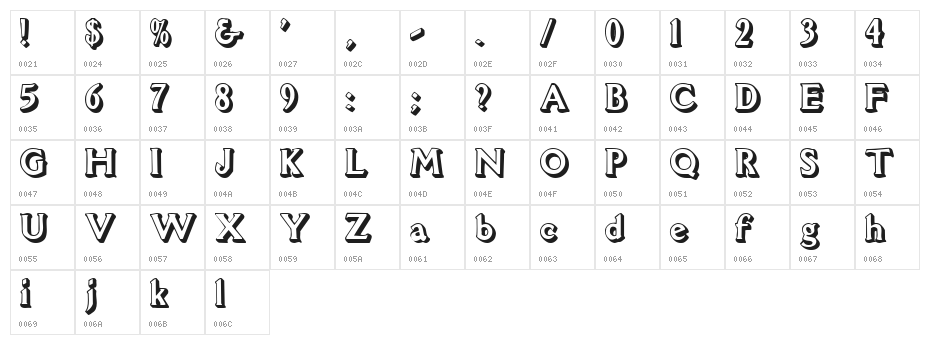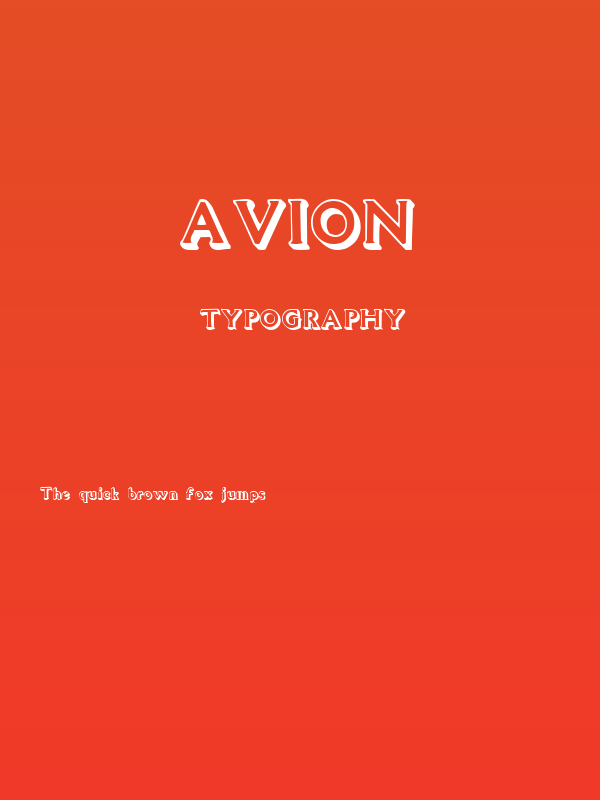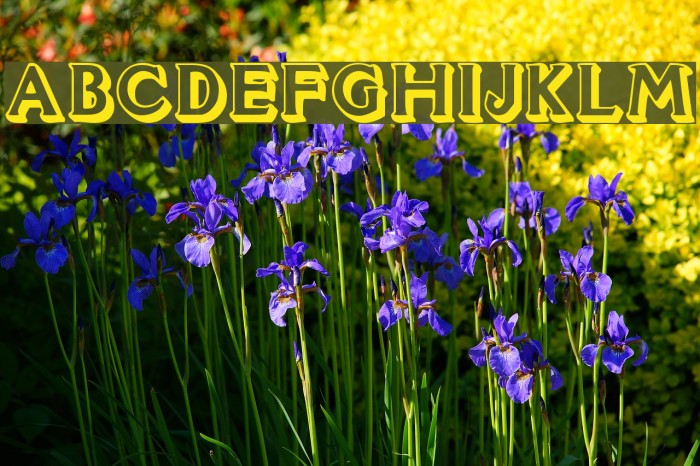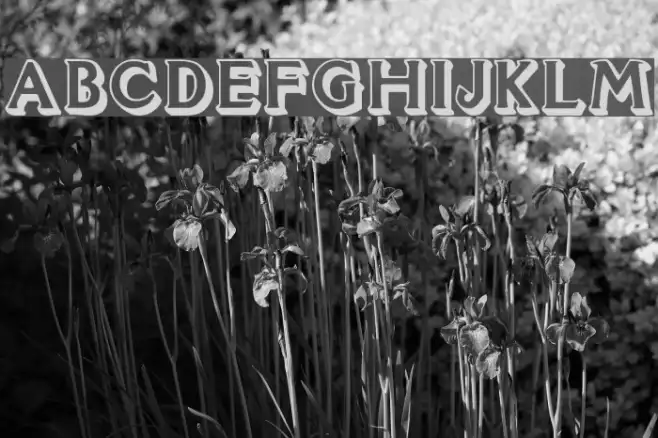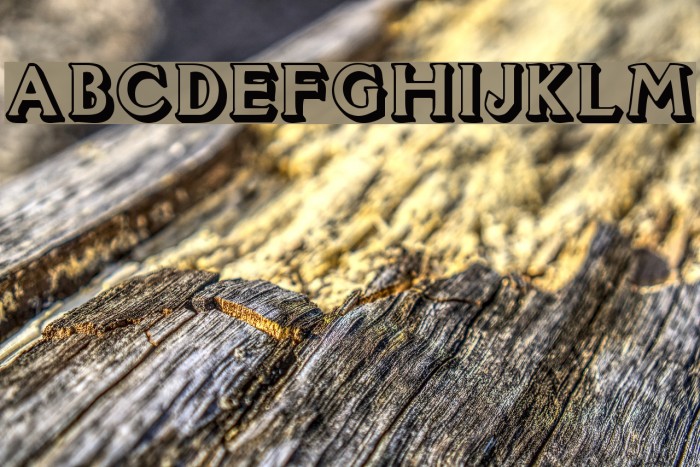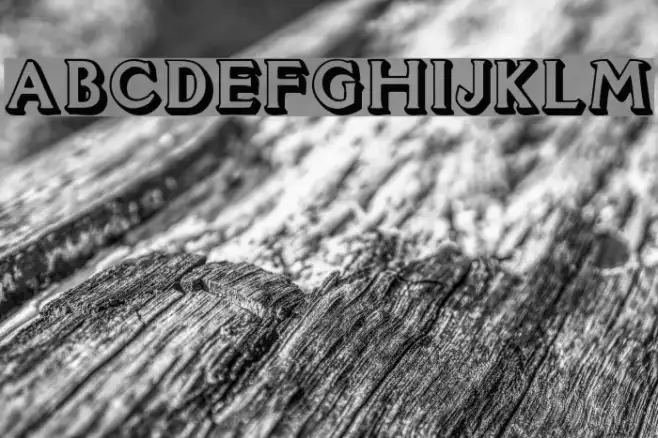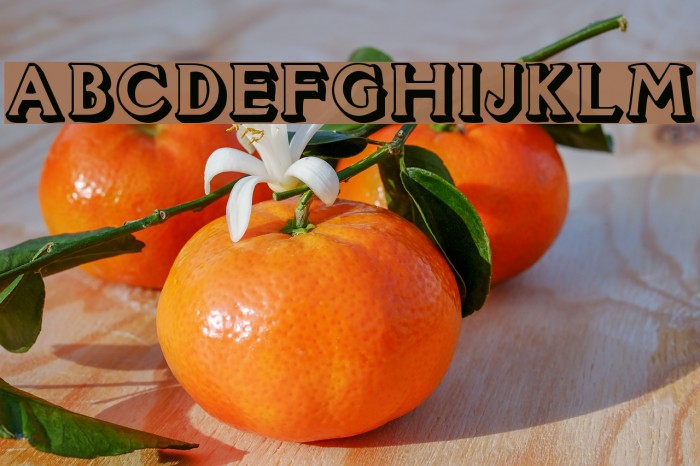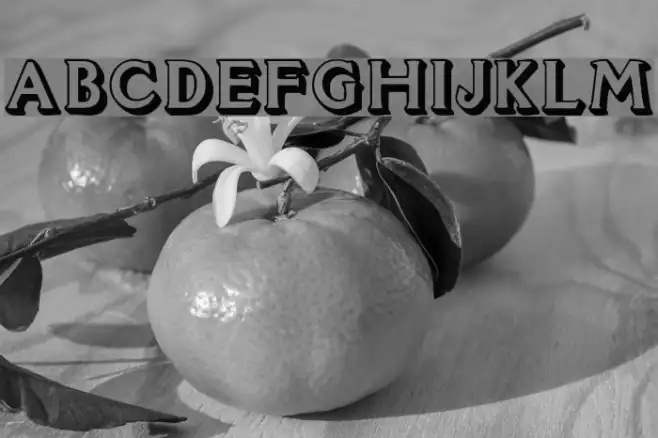
Avion Font
Avion Description
This font features a bold, three-dimensional style with a strong shadow effect, giving it a striking and impactful appearance. The characters are well-defined with a classic serif structure, adding a touch of elegance and sophistication. The uppercase and lowercase letters maintain a consistent style, with a playful yet formal aesthetic. The numerals are equally bold and follow the same design principles, ensuring uniformity across all characters. The special characters are distinct and maintain the font's overall theme, making it versatile for various uses.
| Proposed Projects | Ideal for poster designs, book covers, branding projects, and any creative work that requires a bold statement. |